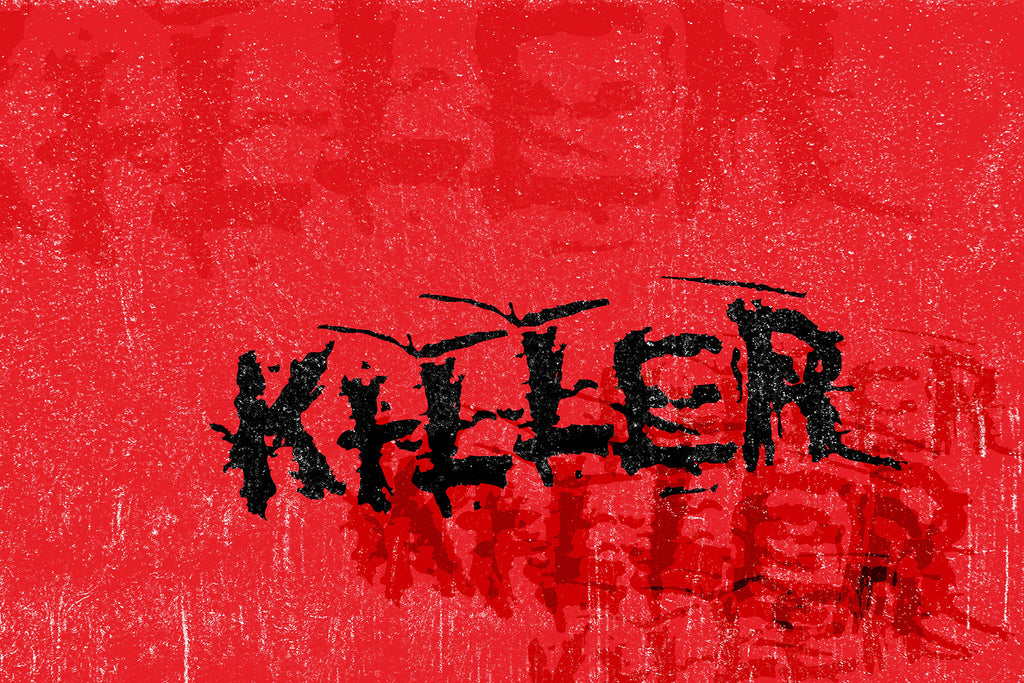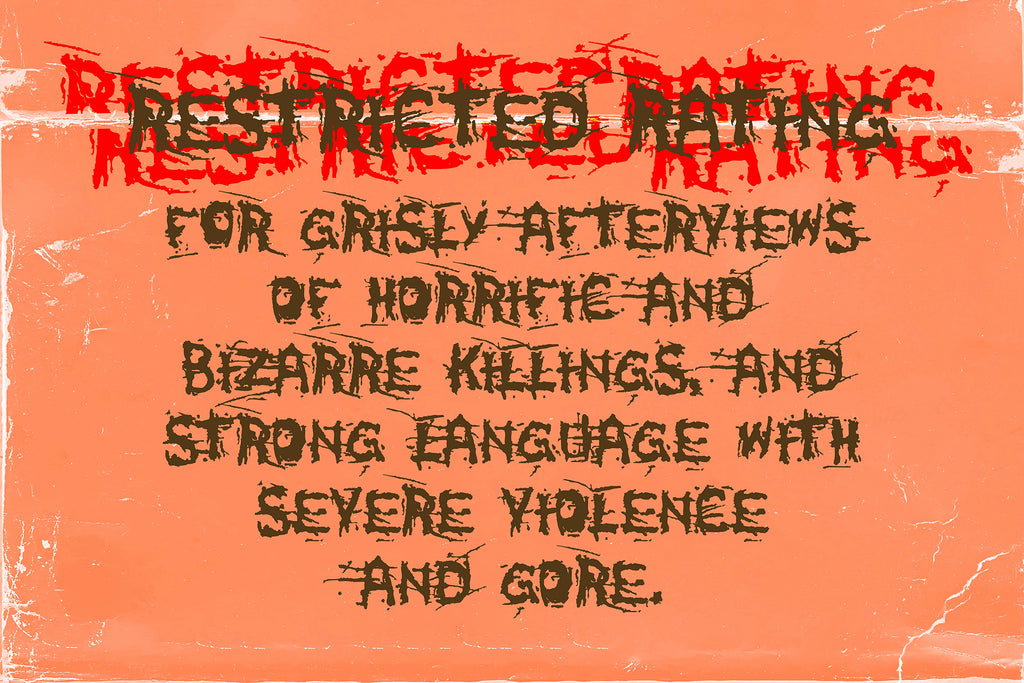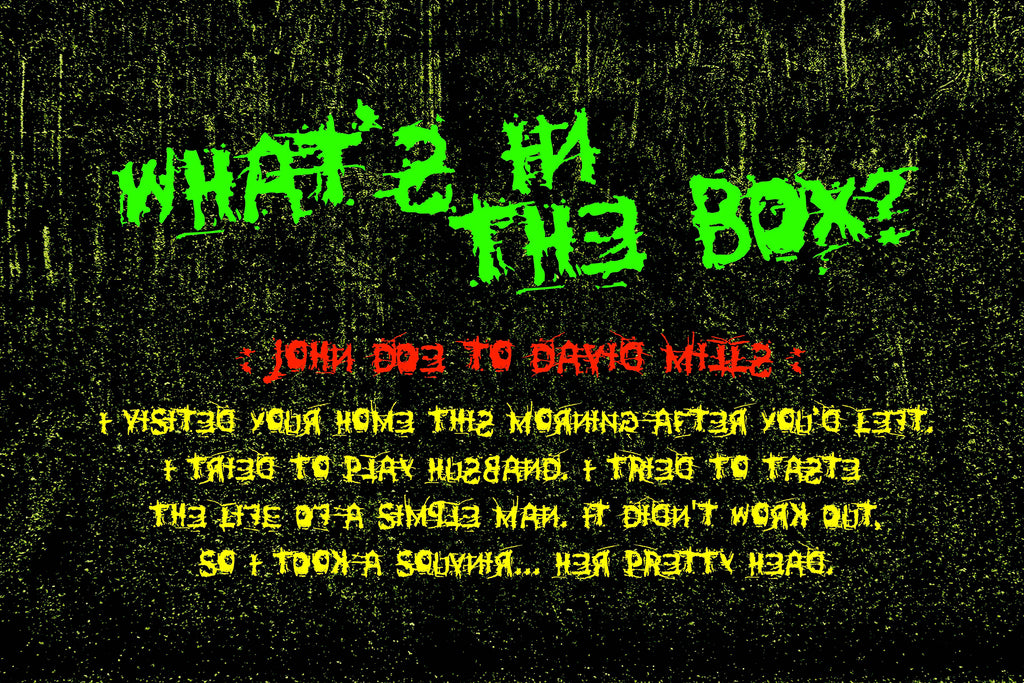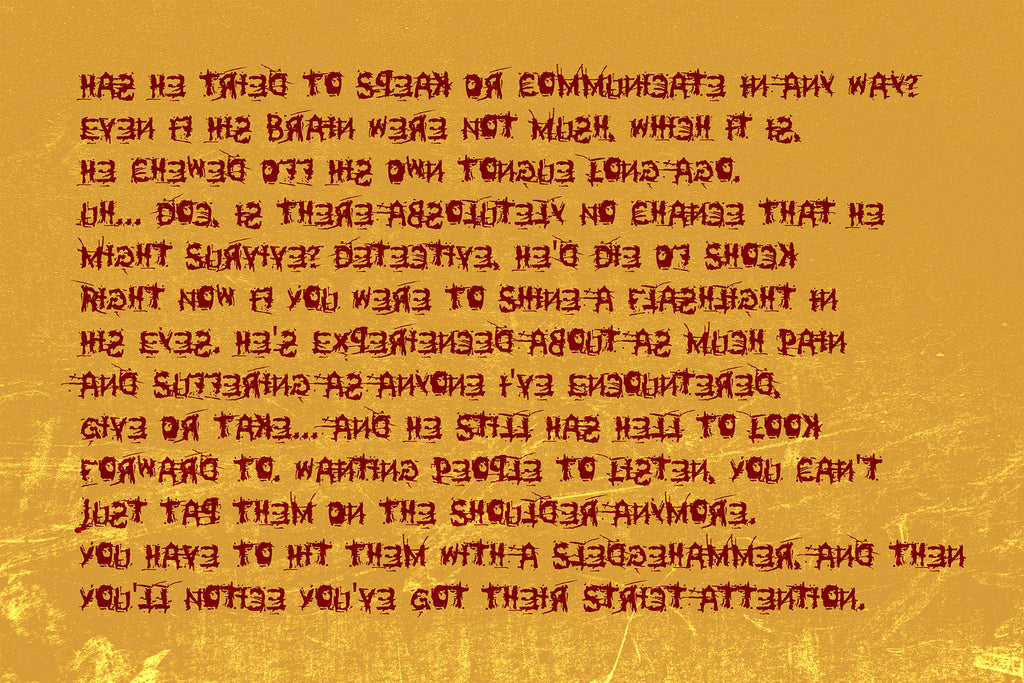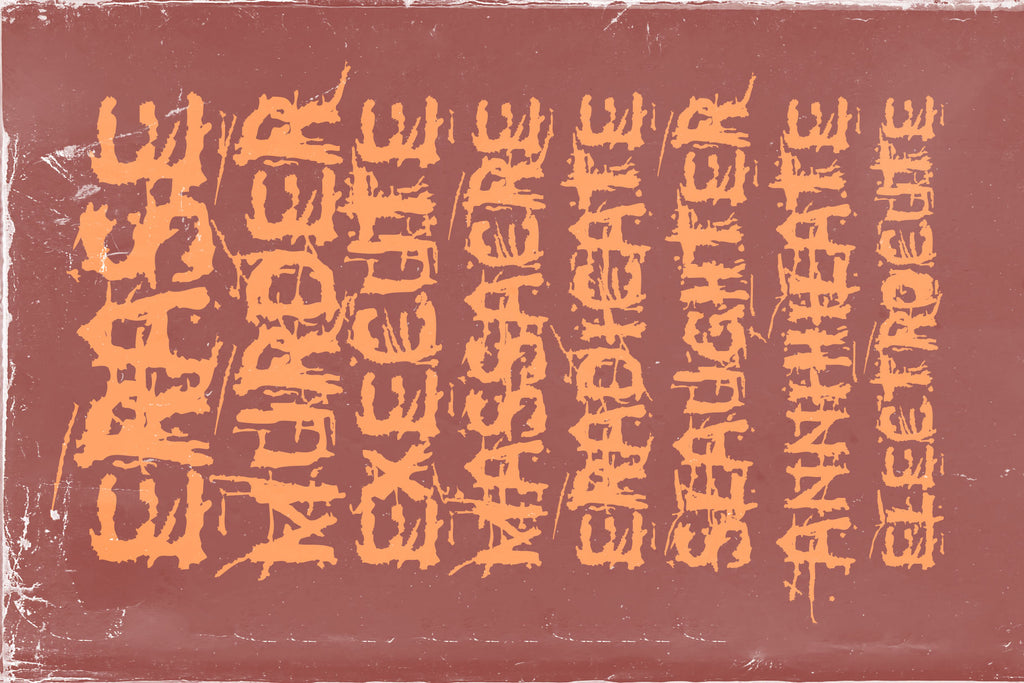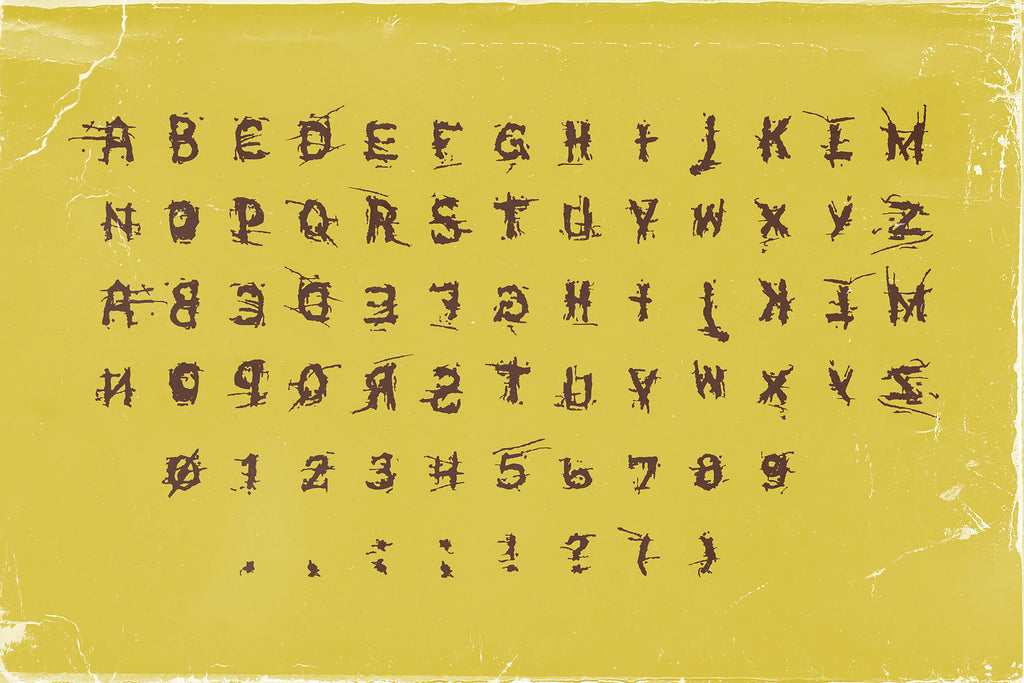
Killer Typeface
Killer is an experimental horror display font drawn blind with the non-dominant hand on heavily crumpled paper. Created in 2000, each character is distorted, shaky, and aggressively imperfect. With 70 raw glyphs, Killer is built for chaos—perfect for horror, punk, noise, zines, and anti-design layouts that demand discomfort.